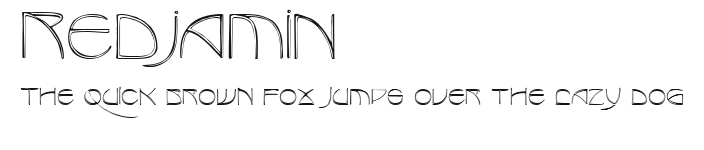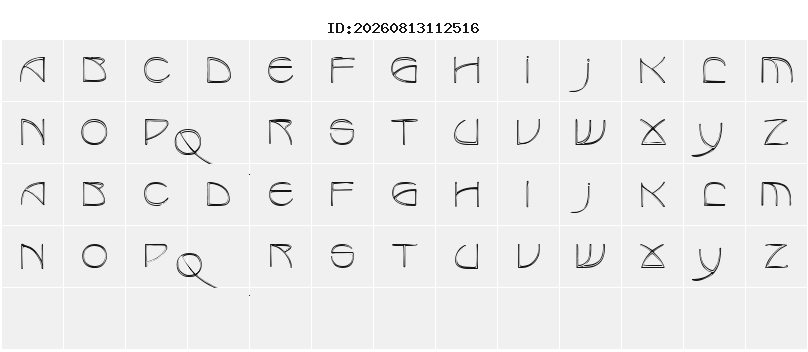
• Font Name: Redjamin
• Full Font Name: Redjamin Regular
About Redjamin.ttf
Redjamin.ttf is a modern, elegant sans-serif font designed for ultimate readability and visual harmony. Perfect for branding, headlines, web design, and print materials.